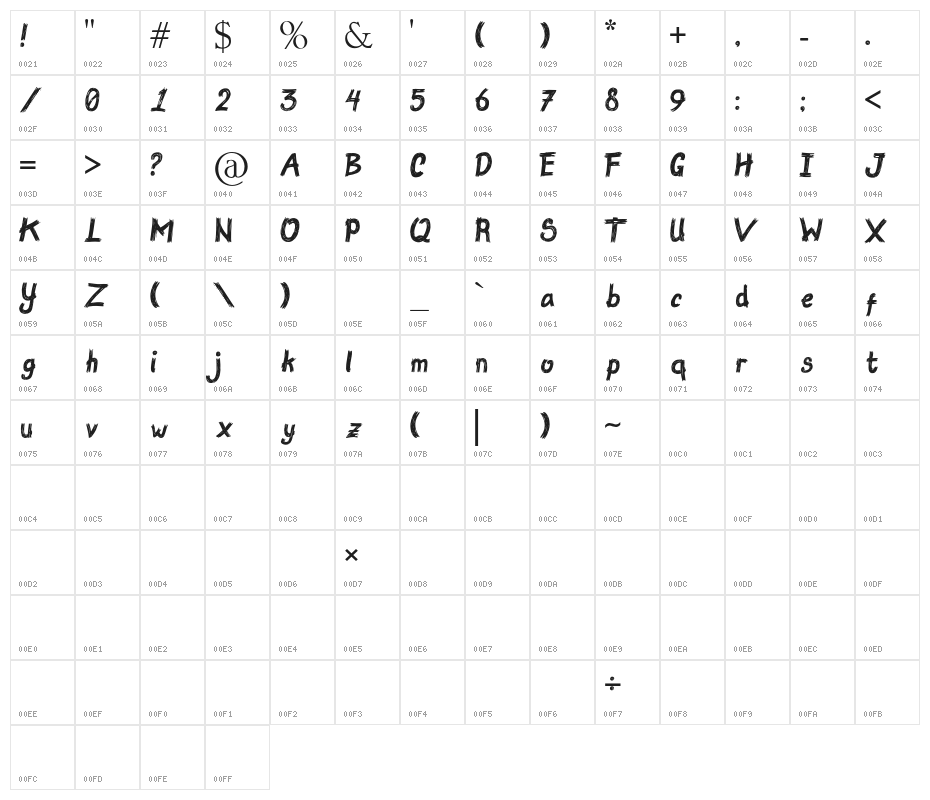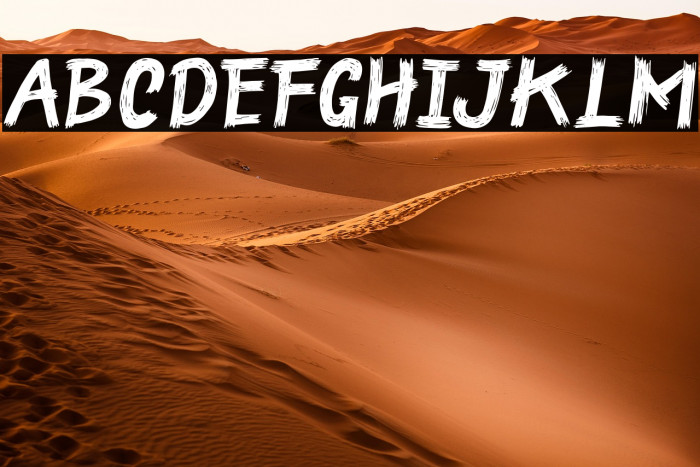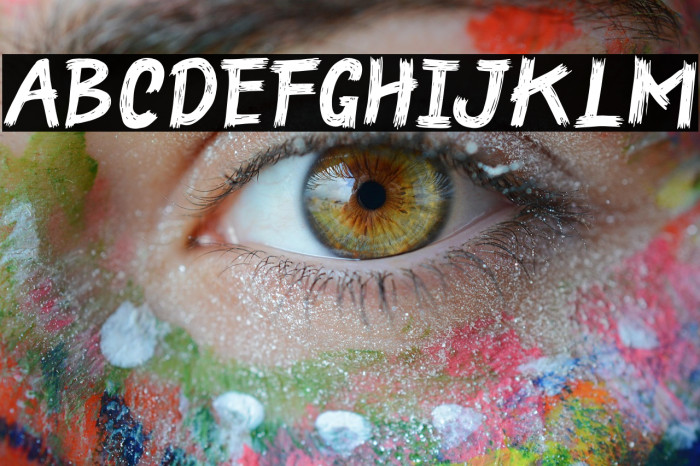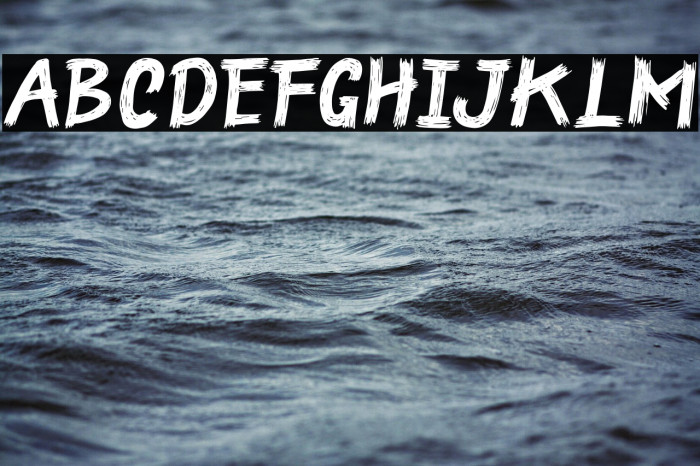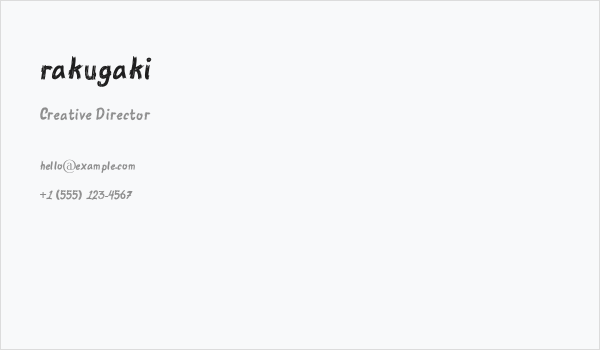
rakugaki Font
rakugaki Description
This font features a bold, expressive style with a hand-drawn appearance, characterized by irregular, brush-like strokes that give it a dynamic and energetic feel. The letters are slightly slanted, adding to the sense of movement and spontaneity. The uppercase and lowercase characters maintain a consistent style, with the uppercase being more pronounced. Numbers and special characters follow the same artistic approach, making the font suitable for creative and informal designs. Its unique texture and playful nature make it stand out, ideal for projects that require a touch of creativity and individuality.
Proposed ProjectsPerfect for posters, album covers, branding for creative industries, and any design needing a lively, artistic touch.